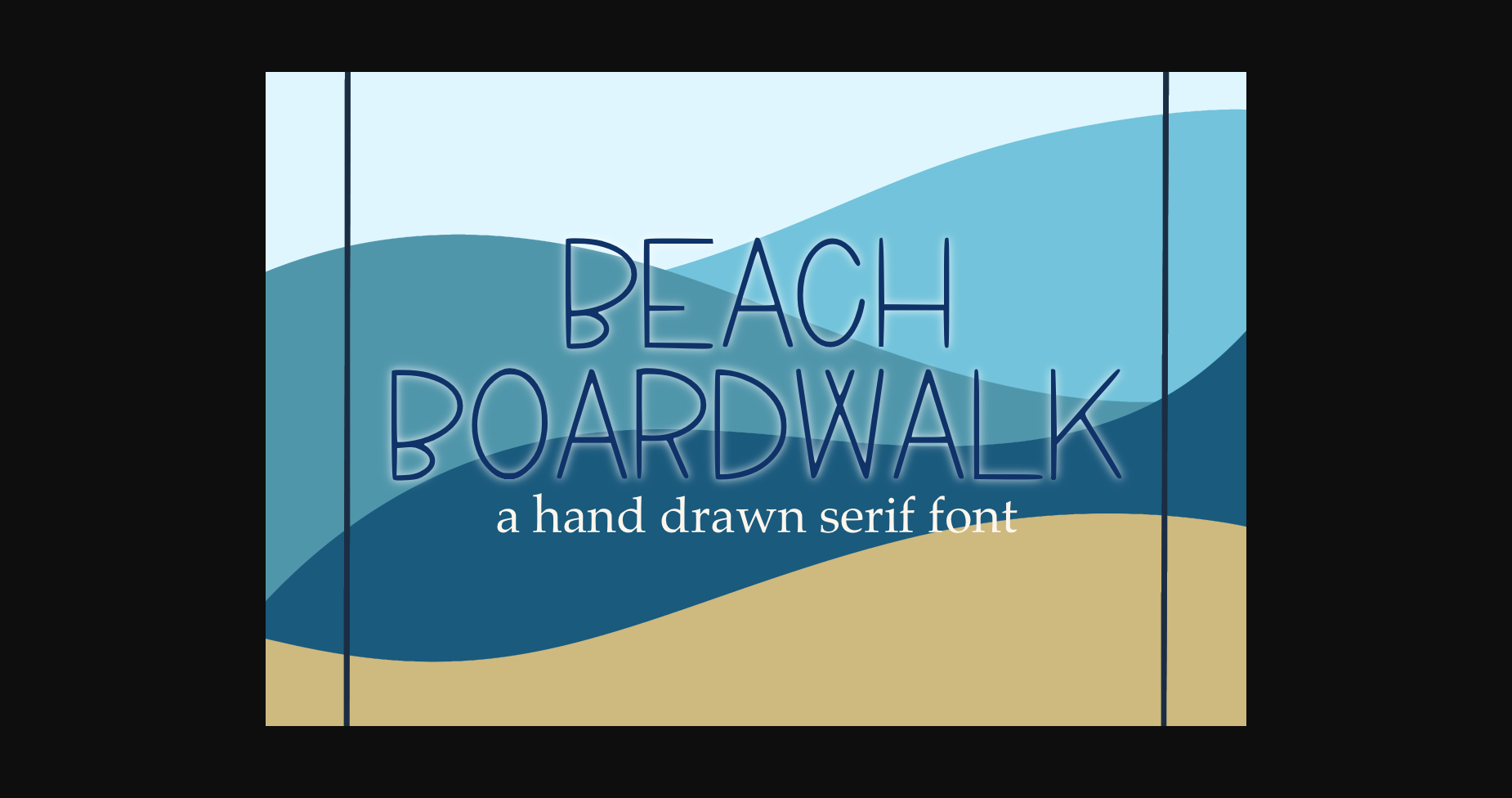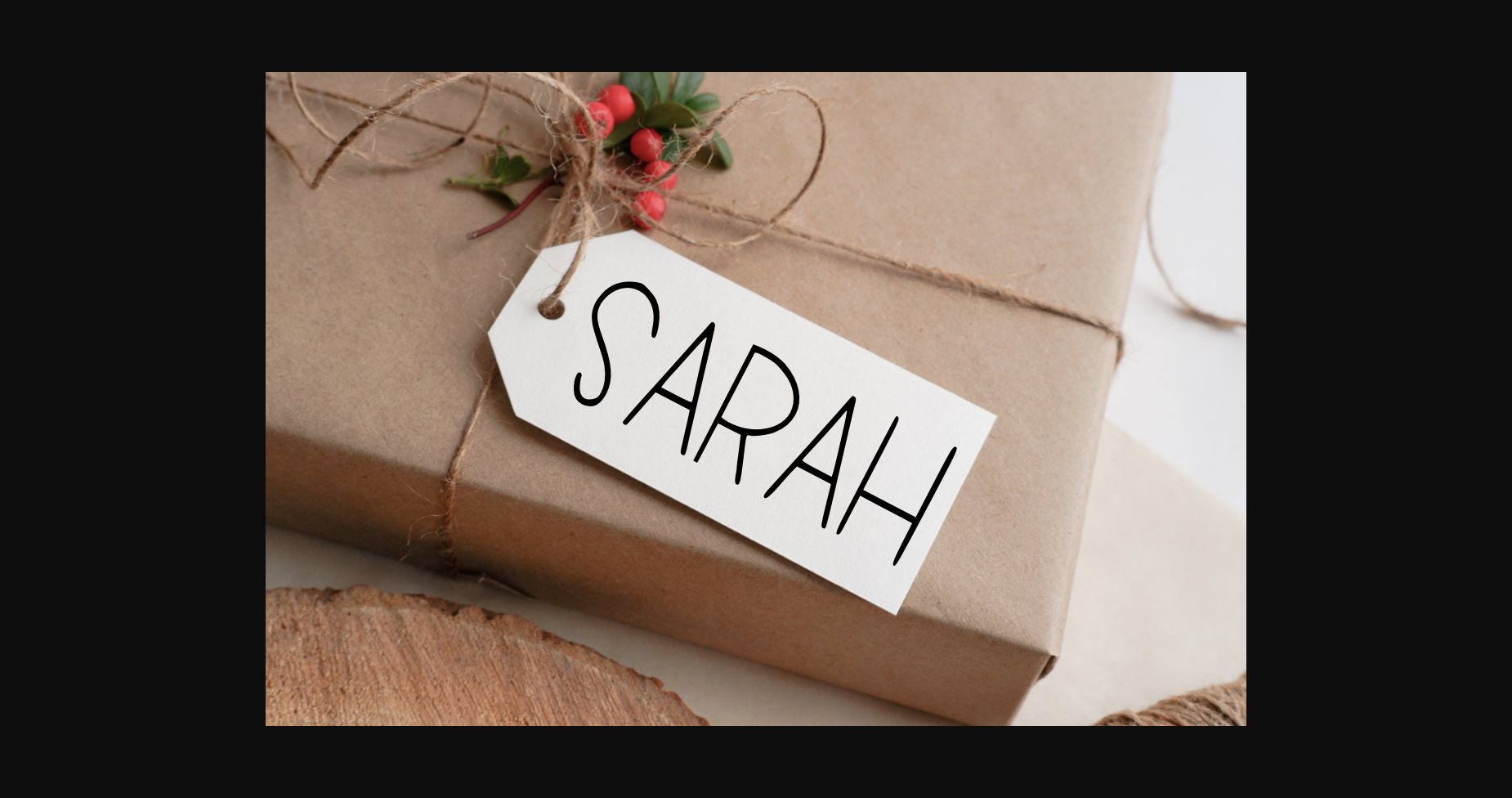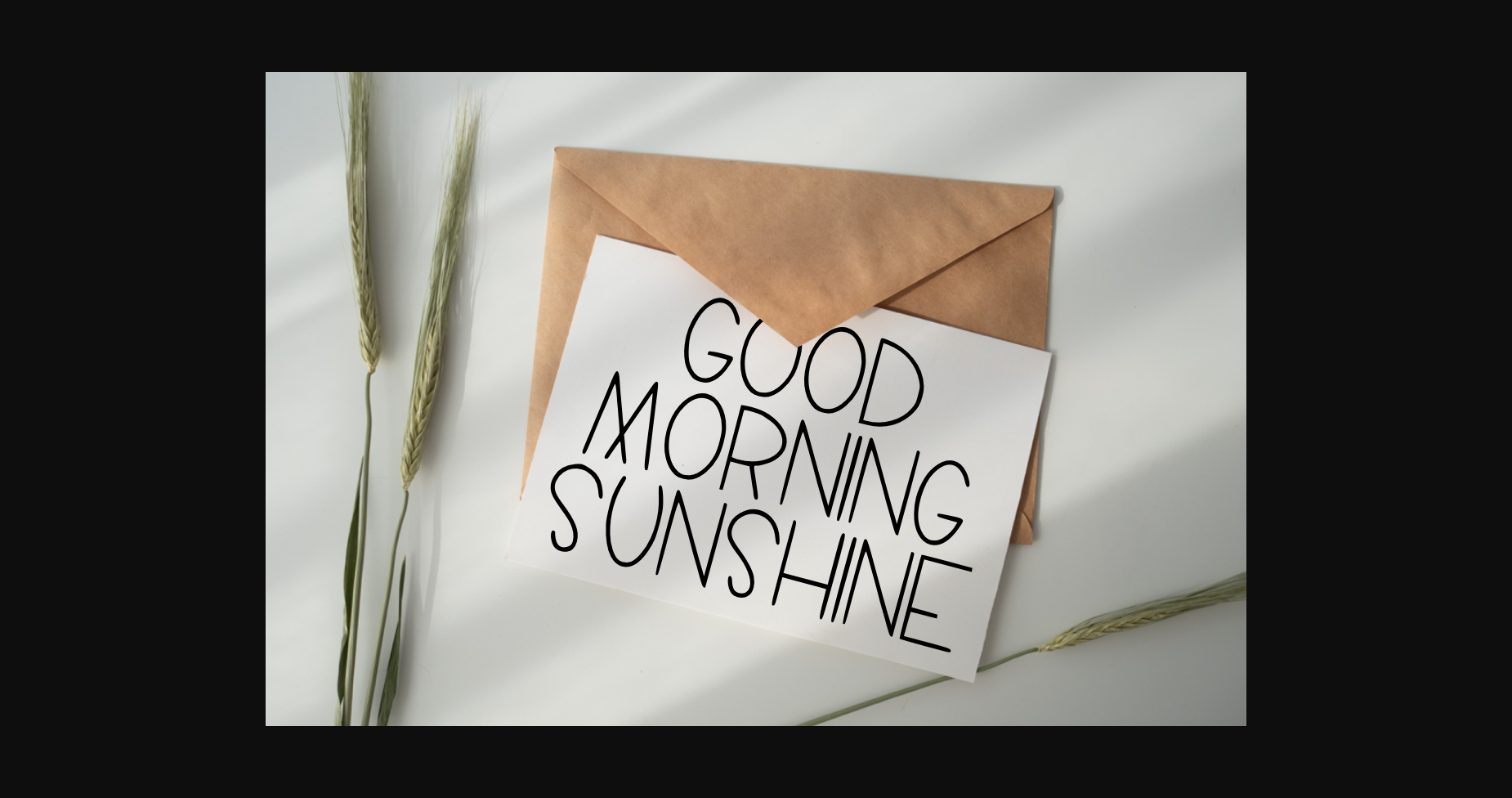
About Beach Boardwalk Font
Beach Boardwalk is a clean and modern typeface. This font is often used for digital and web designs, as well as for headlines and titles in print. Its simplicity and versatility make it a popular choice for both creative and corporate projects.